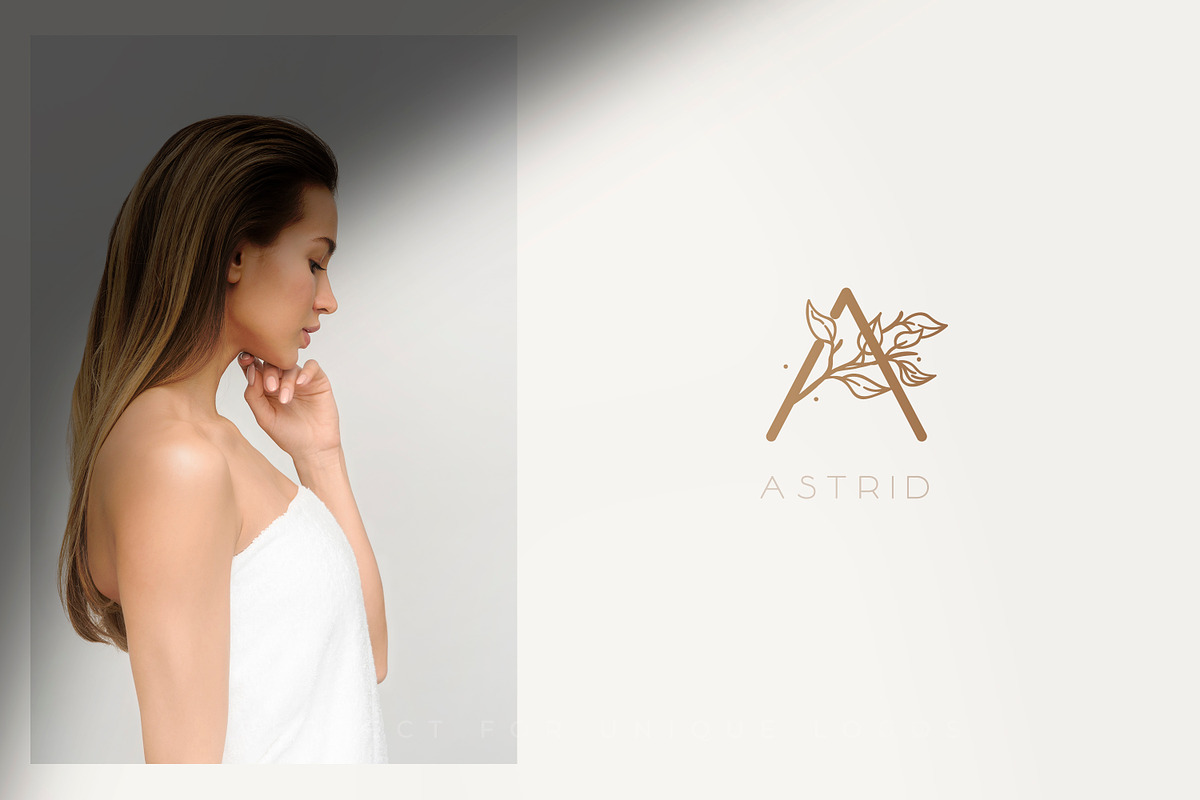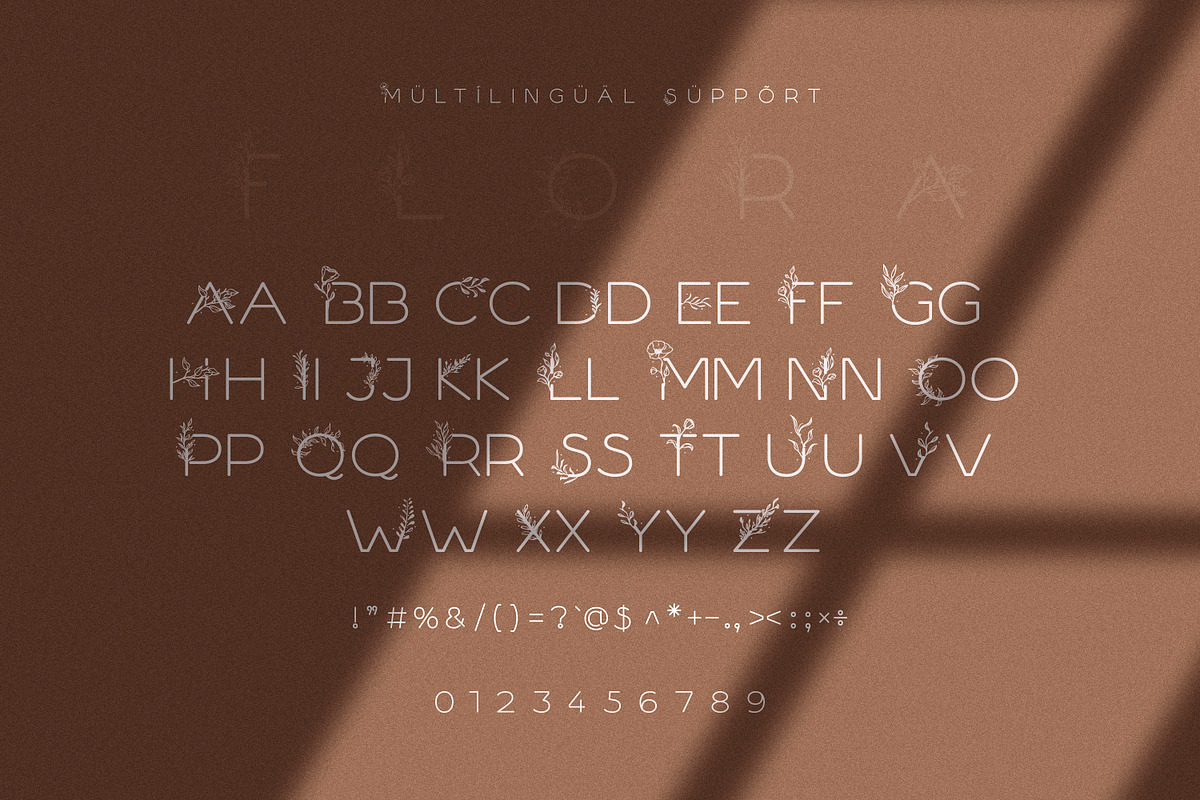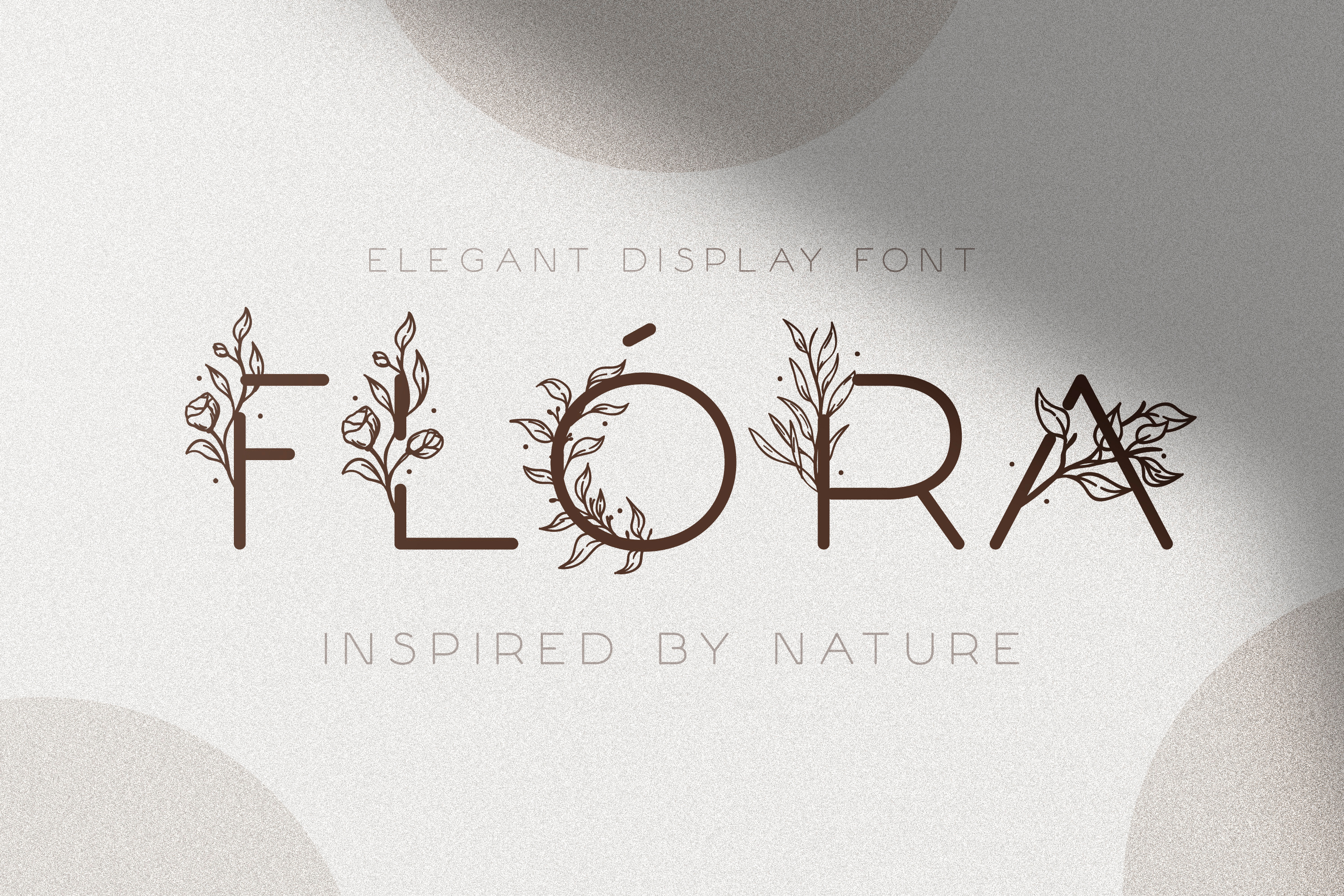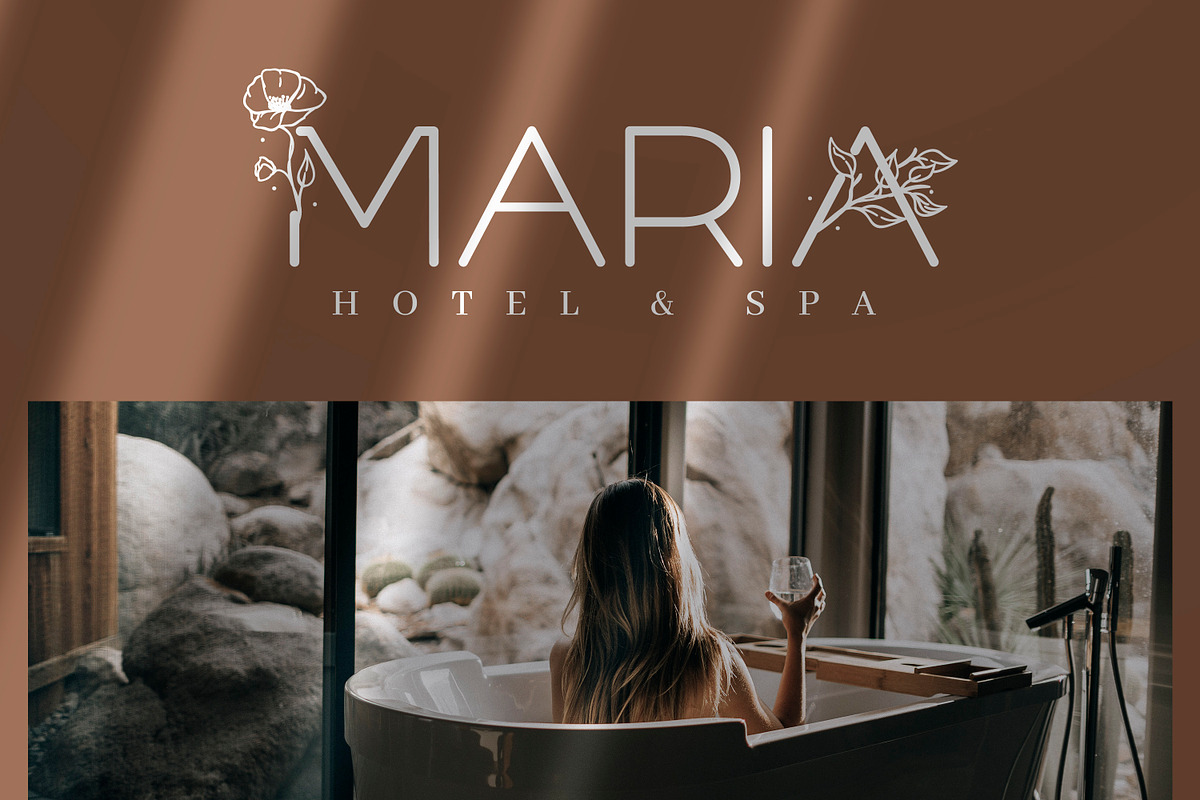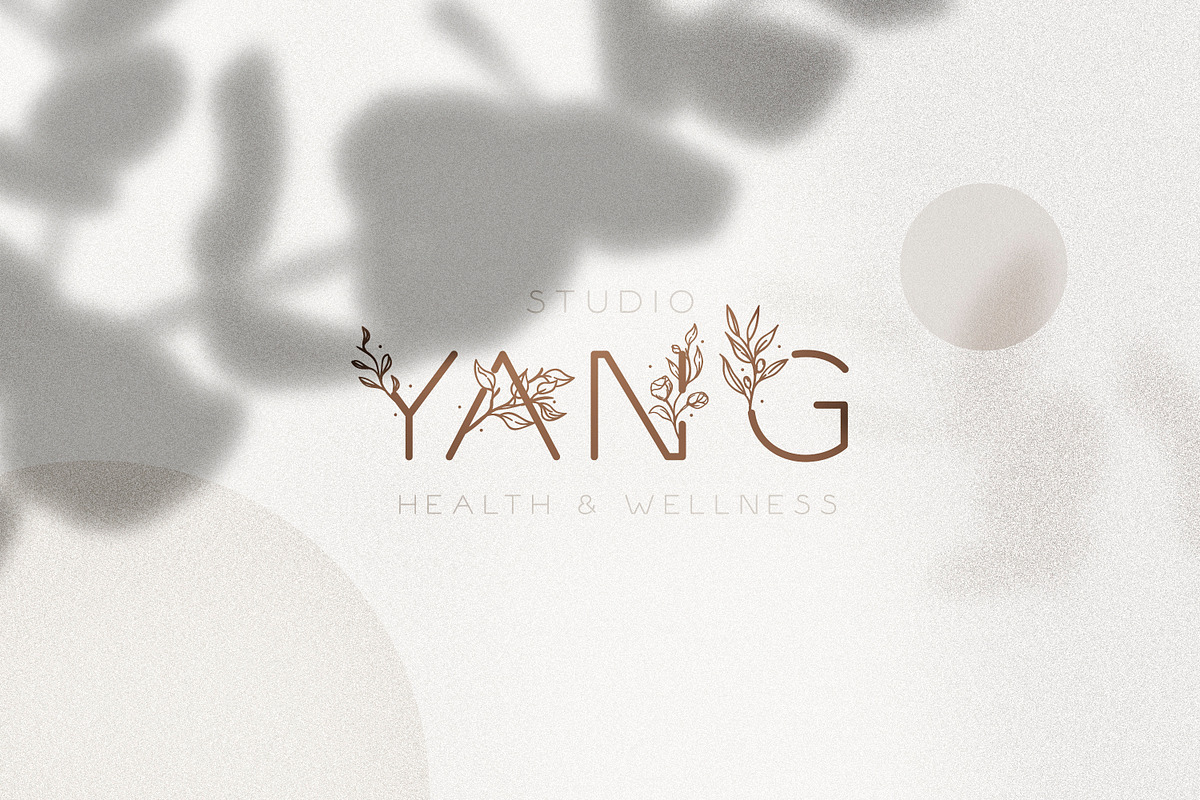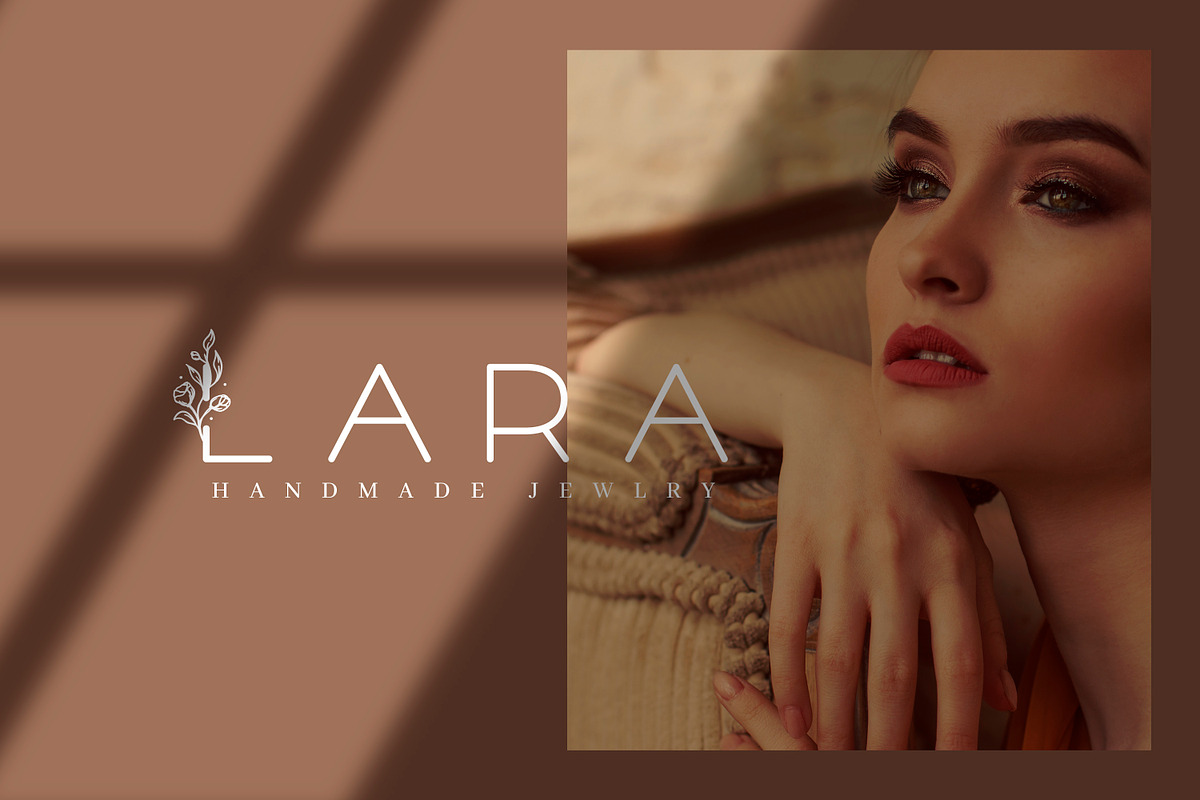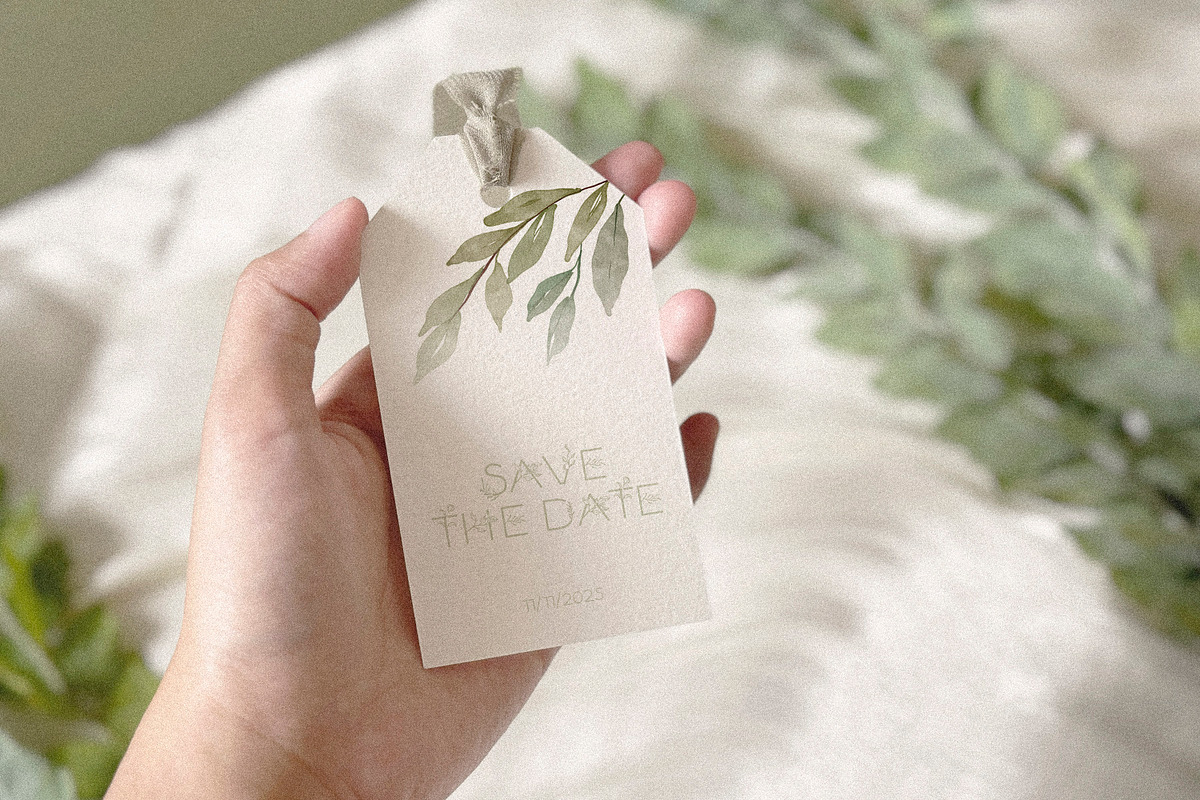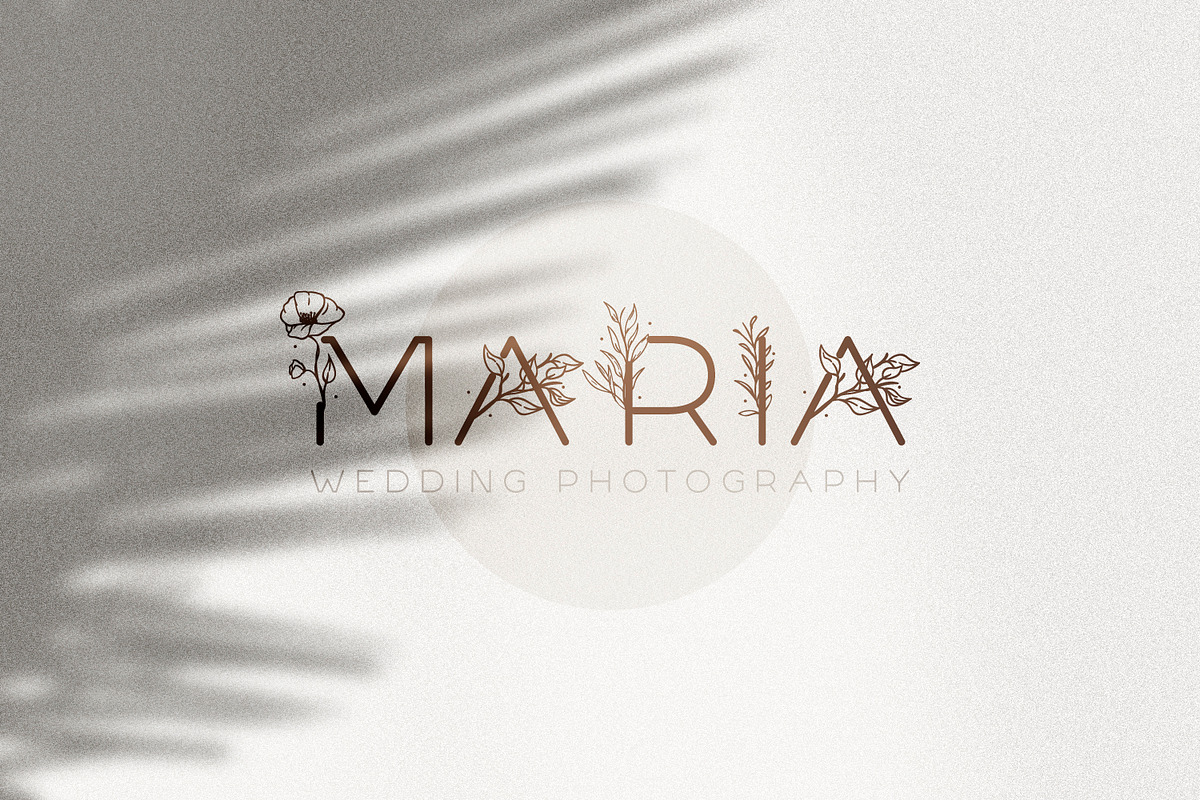
Flóra - A Delicate Floral Font
Introducing Flóra - A Delicate Floral Font with Flowers and Leaves
What sets Flóra apart are the delicate floral motifs that are interspersed within select characters. These embellishments add a touch of nature-inspired beauty without overwhelming the text, making this font ideal for wedding invitations, upscale branding, and elegant packaging.
It's an elegant and feminine font suitable for all kinds of headlines and decorative purposes. It's a perfect font for, all kinds of wedding stationery, invitations, natural logos, flower shops, packaging, social media posts and so much more!
The font also supports a basic set of multilingual glyphs.